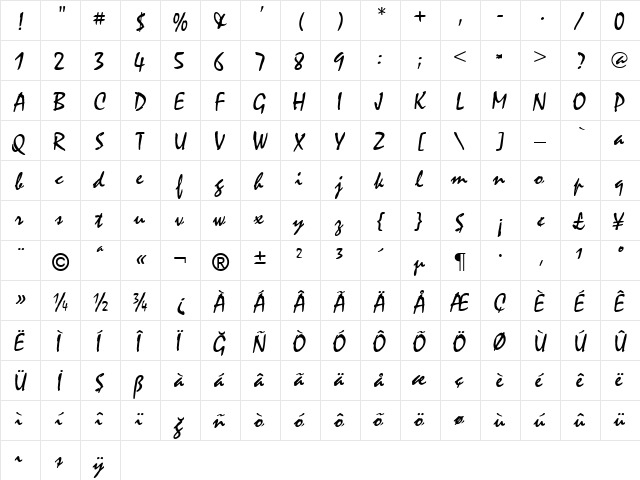
TR Mystical Plain
Design Context for TR Mystical Typeface
TR Mystical is a composed and adaptable typeface that performs quietly and consistently across a wide range of design contexts.